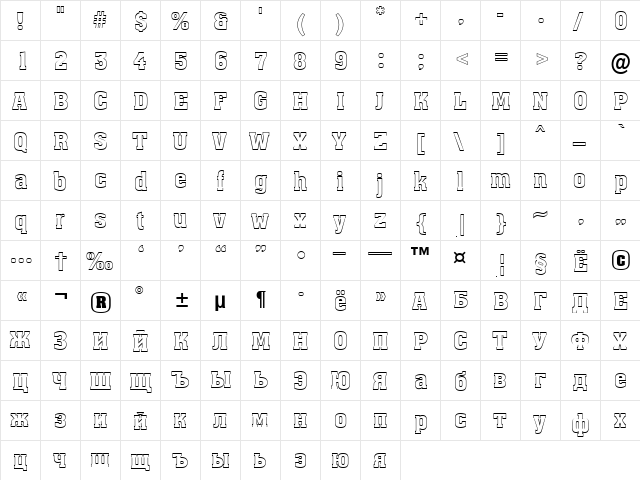
a_AssuanOtl Medium Font Preview
a_AssuanOtl Medium
a_AssuanOtl Medium Font Details
Design Context for a_AssuanOtl Typeface
a_AssuanOtl takes a measured approach to typography — its balanced proportions and neutral character make it a reliable workhorse for both digital and print work.